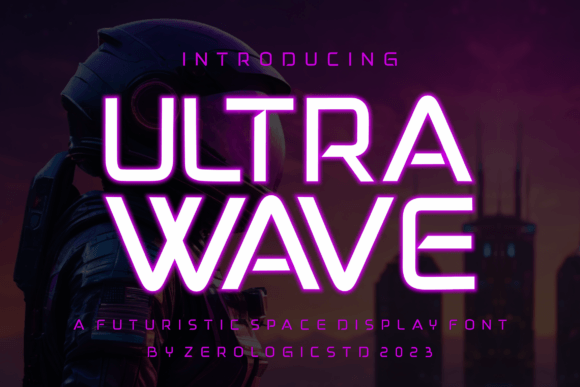
Introducing Ultrawave Font: The Ultimate Futuristic Typeface for Modern Designs
In the world of typography, fonts play a crucial role in conveying the tone and aesthetic of a design. With the ever-evolving landscape of digital and tech industries, the demand for modern and futuristic typefaces has increased significantly. This is where the Ultrawave Font comes into play – a sleek, modern typeface designed to add a bold, high-tech look to your designs. In this article, we’ll explore the features, benefits, and uses of the Ultrawave Futuristic Font, and why it’s the perfect choice for tech, science fiction, or digital projects.
What is Ultrawave Font?
Ultrawave Font is a contemporary typeface designed with clean lines, geometric shapes, and a futuristic aesthetic. Its sleek and modern design makes it an ideal choice for designers looking to add a bold, high-tech feel to their projects. The font features a unique blend of curved and straight lines, creating a distinctive look that’s both elegant and edgy.
Key Features of Ultrawave Futuristic Font
- Clean Lines and Geometric Shapes: The Ultrawave Font boasts clean lines, geometric shapes, and a minimalist design approach, making it perfect for modern and futuristic designs.
- High-Tech Aesthetic: The font’s sleek and futuristic design gives it a high-tech look that’s ideal for tech, science fiction, or digital projects.
- Bold and Edgy: The Ultrawave Font has a bold and edgy personality, making it perfect for designs that require a statement piece.
- Versatile: The font is versatile and can be used for a wide range of design projects, from logos and branding to headings and titles.
Benefits of Using Ultrawave Font
The Ultrawave Font offers several benefits to designers, including:
- Instant Recognition: The font’s unique design ensures instant recognition, making it perfect for logos, branding, and advertising.
- Professional Look: The Ultrawave Font gives designs a professional and polished look, making it ideal for businesses and organizations.
- Emotional Connection: The font’s bold and edgy personality can help create an emotional connection with the target audience.
- Cross-Platform Compatibility: The Ultrawave Font is compatible with various platforms, including print, digital, and web.
Use Cases for Ultrawave Futuristic Font
The Ultrawave Font is perfect for a wide range of design projects, including:
- Tech and Digital Projects: The font’s futuristic design makes it ideal for tech, digital, and software-related projects.
- Science Fiction and Gaming: The Ultrawave Font’s bold and edgy personality makes it perfect for science fiction and gaming-related projects.
- Logos and Branding: The font’s unique design makes it ideal for logos, branding, and advertising.
- Headings and Titles: The Ultrawave Font is perfect for headings and titles, adding a bold and futuristic touch to any design.
How to Use Ultrawave Font in Your Designs
Using the Ultrawave Font in your designs is easy and straightforward. Here are some tips to get you started:
- Pair with Other Fonts: Pair the Ultrawave Font with other fonts to create a unique and visually appealing design.
- Experiment with Colors: Experiment with different colors to find the perfect combination that matches your brand’s identity.
- Use for Headings and Titles: Use the Ultrawave Font for headings and titles to add a bold and futuristic touch to your designs.
- Customize and Edit: Customize and edit the font to fit your design needs, ensuring it aligns with your brand’s identity.
In conclusion, the Ultrawave Font is a modern, sleek typeface designed to add a bold, high-tech look to your designs. Its clean lines, geometric shapes, and futuristic aesthetic make it perfect for tech, science fiction, or digital projects. With its versatility, professional look, and emotional connection, the Ultrawave Font is an excellent choice for designers looking to create stunning and effective designs.
FAQs About Ultrawave Font
- What is the Ultrawave Font? The Ultrawave Font is a modern, sleek typeface designed to add a bold, high-tech look to your designs.
Ultrawave Font – The Perfect Choice for Modern Designs
In today’s fast-paced digital landscape, having a modern and futuristic typeface is crucial for creating effective designs. The Ultrawave Font offers a unique blend of style, versatility, and professionalism, making it the perfect choice for designers looking to create stunning and effective designs. Whether you’re working on a tech project, science fiction game, or digital advertisement, the Ultrawave Font is sure to make a lasting impression.